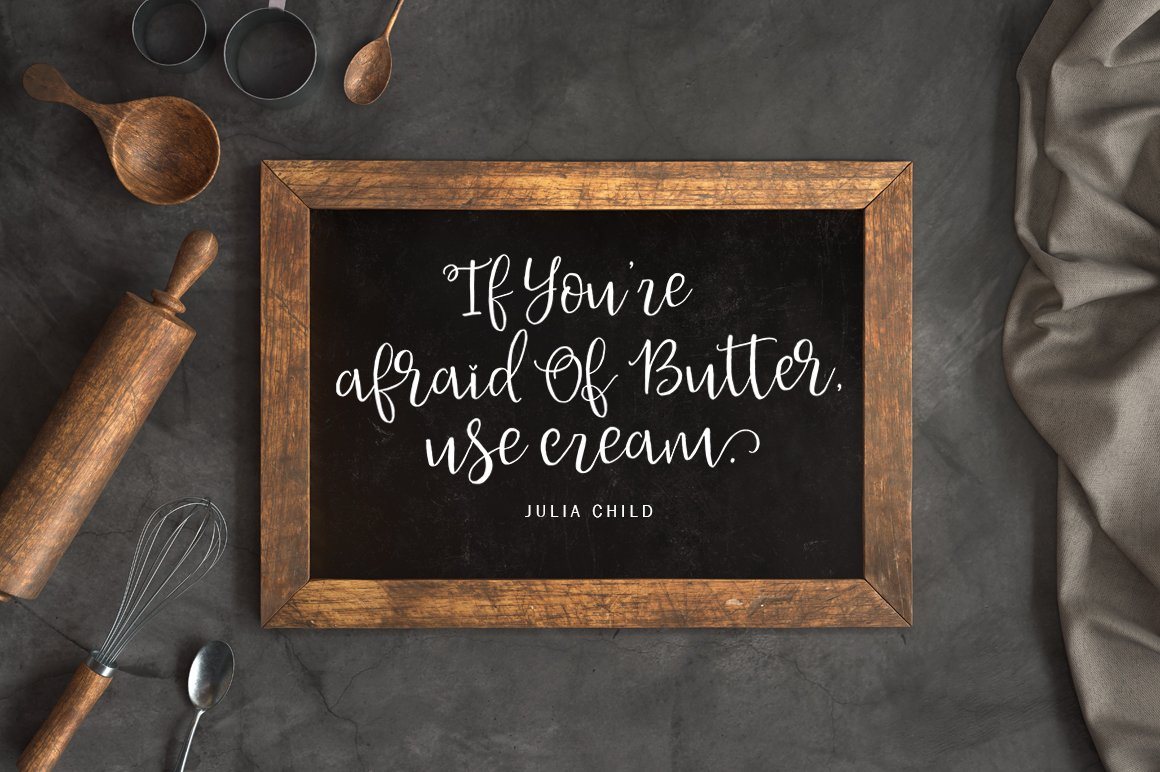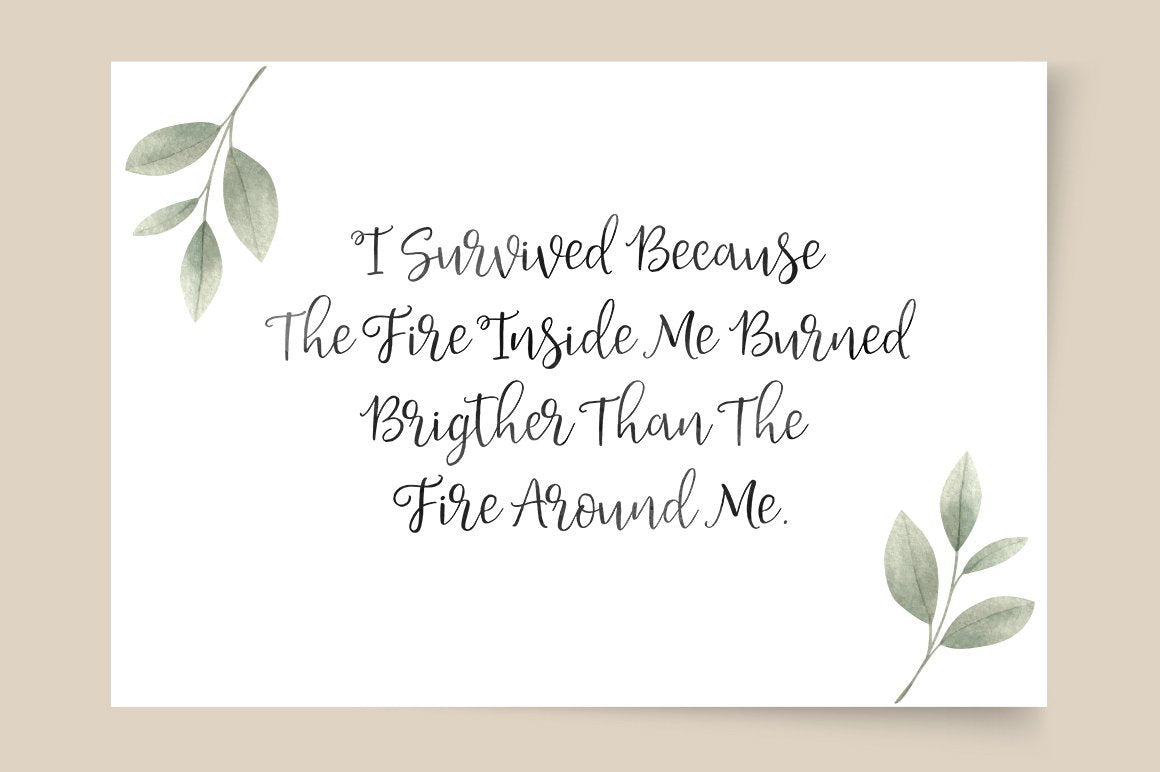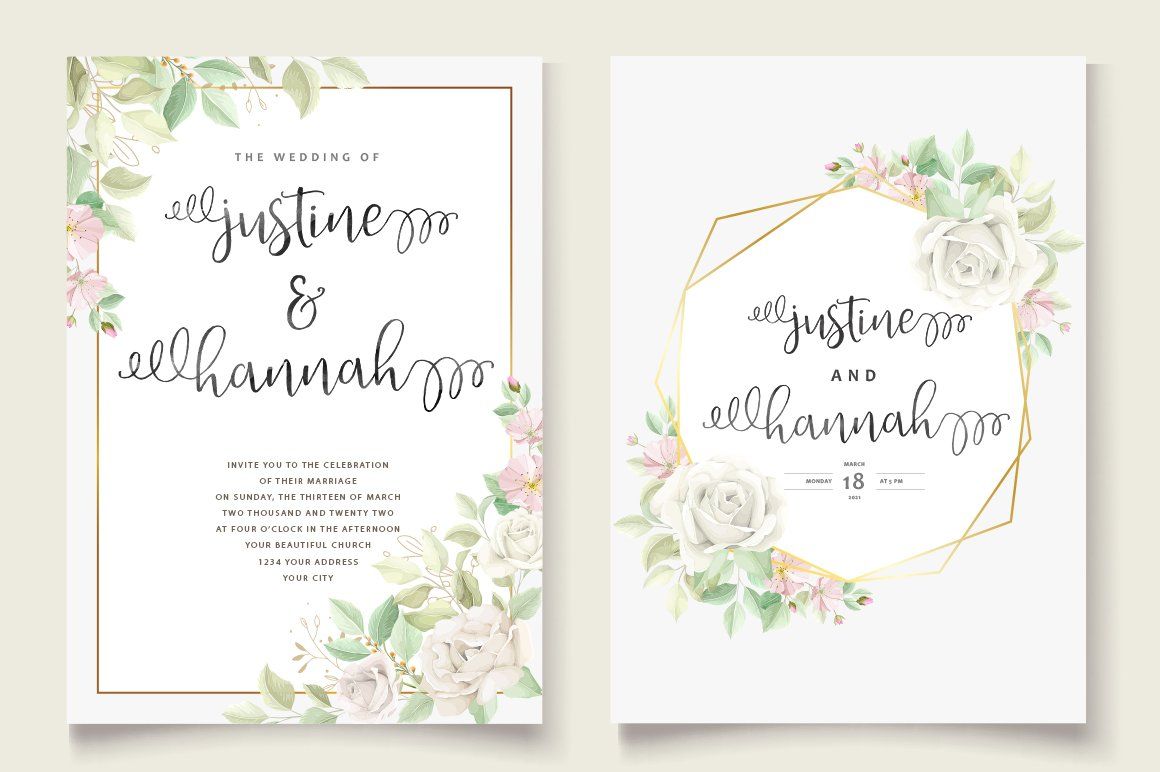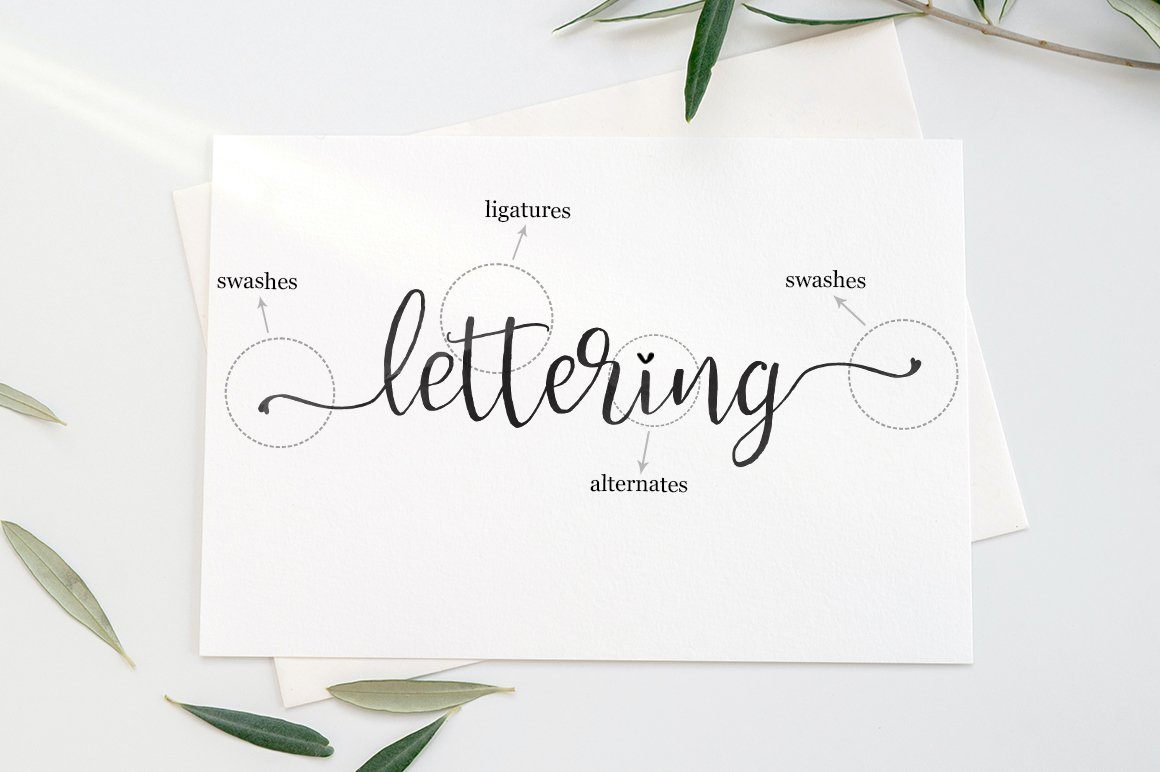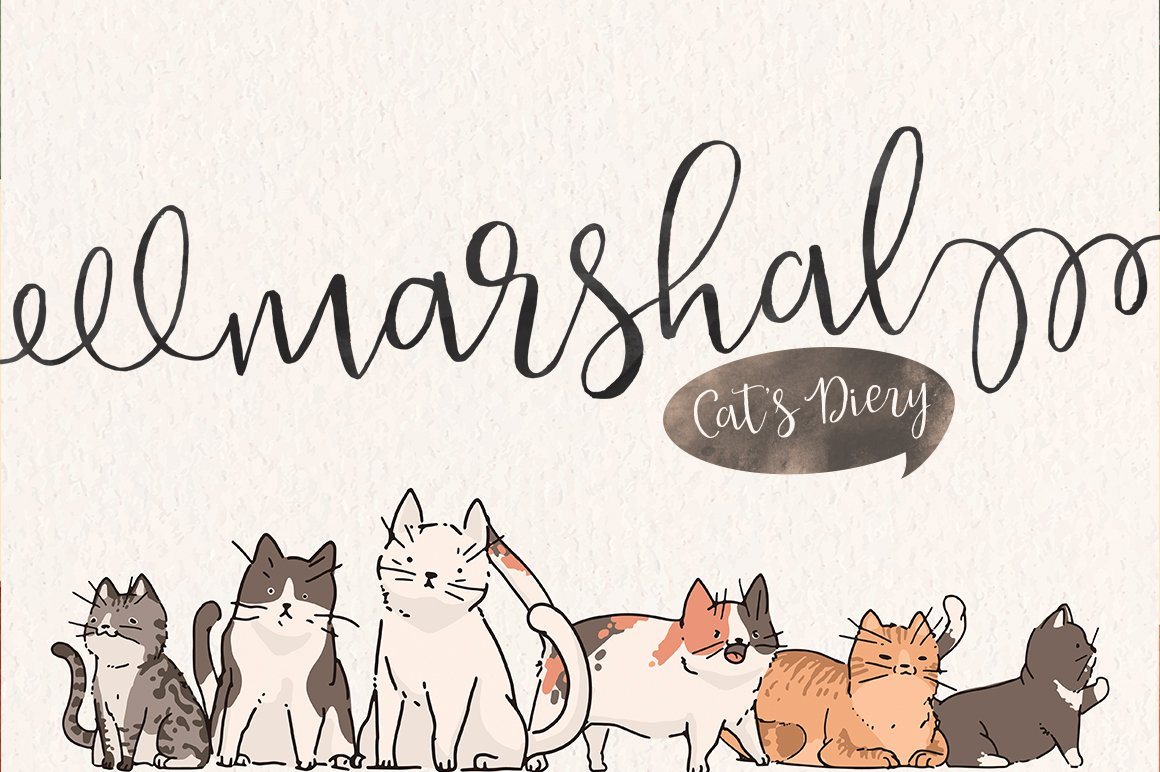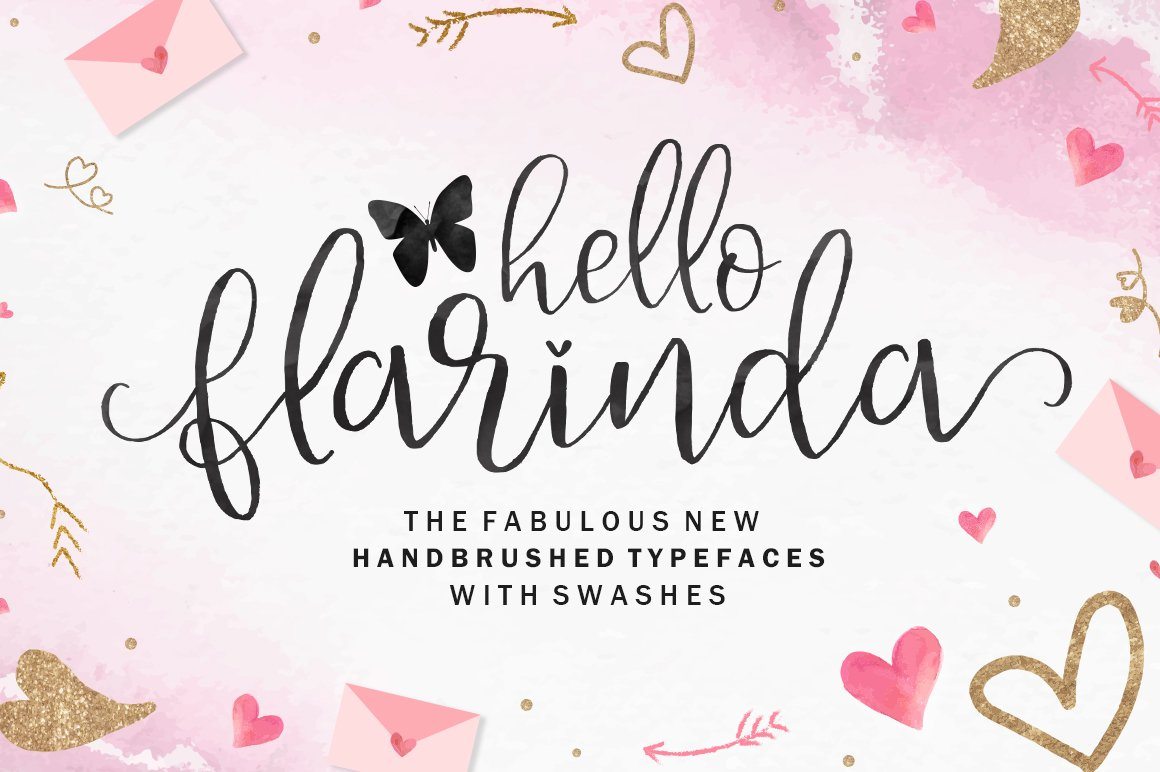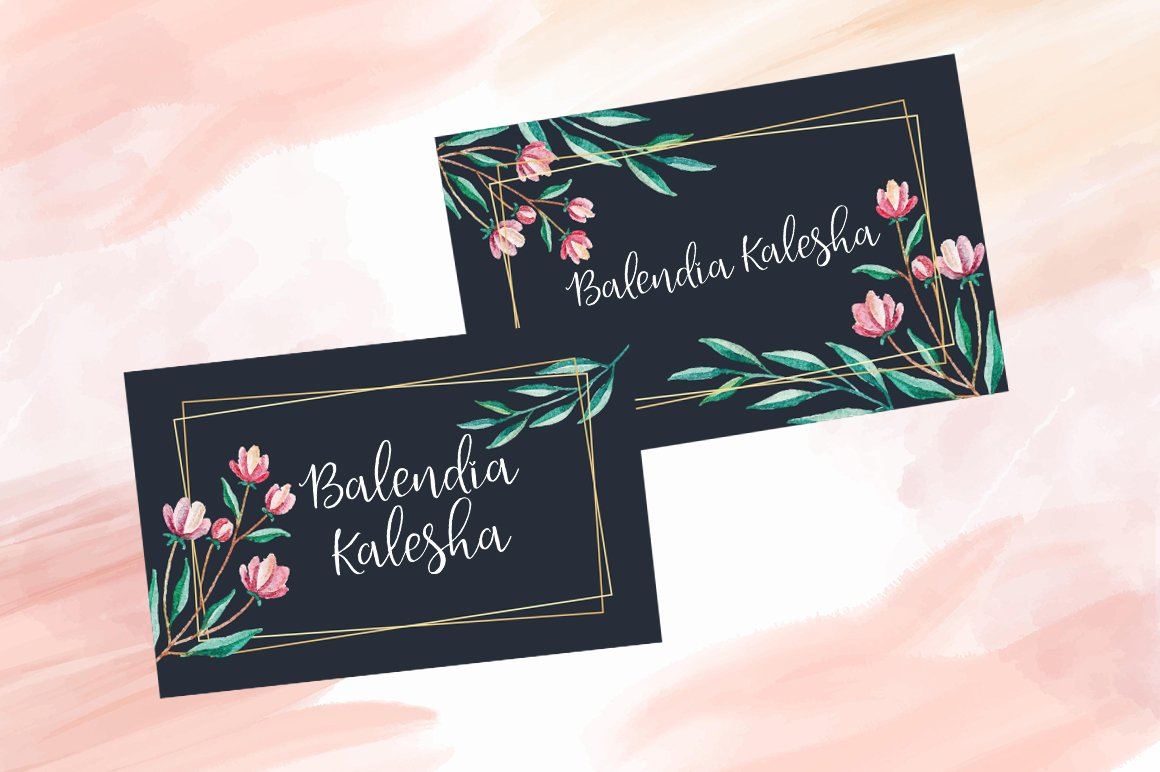
Hello Flarinda
About Hello Flarinda
Welcome 🙂 Hello Flarinda script + Swashes is a hand brush font made with brushes and ink. This typeface is ideal for use in thick watercolor designs or handwriting styles, such as blog titles, posters, wedding elements, t-shirts, clothing, book covers, business cards, greeting cards, branding, merchandise etc. Contains full set: – Uppercase – Lowercase – Alternative – Ligatures – Punctuation – Number – Multilingual support. And also Hello Flarinda Swahes , works in harmony with Hello Flarinda scripts to create exceptional typographic creations. Get inspiration from the preview above. Contains full set: – Uppercase, – Lowercase, – Punctuation, – number, – multilingual support. How to access all alternative characters, using Windows Character Map with Photoshop: – https://www.youtube.com/watch?v=Go9vacoYmBw How to access all alternative characters using Adobe Illustrator: – https://www.youtube.com/watch?v=XzwjMkbB-wQ Thank you!